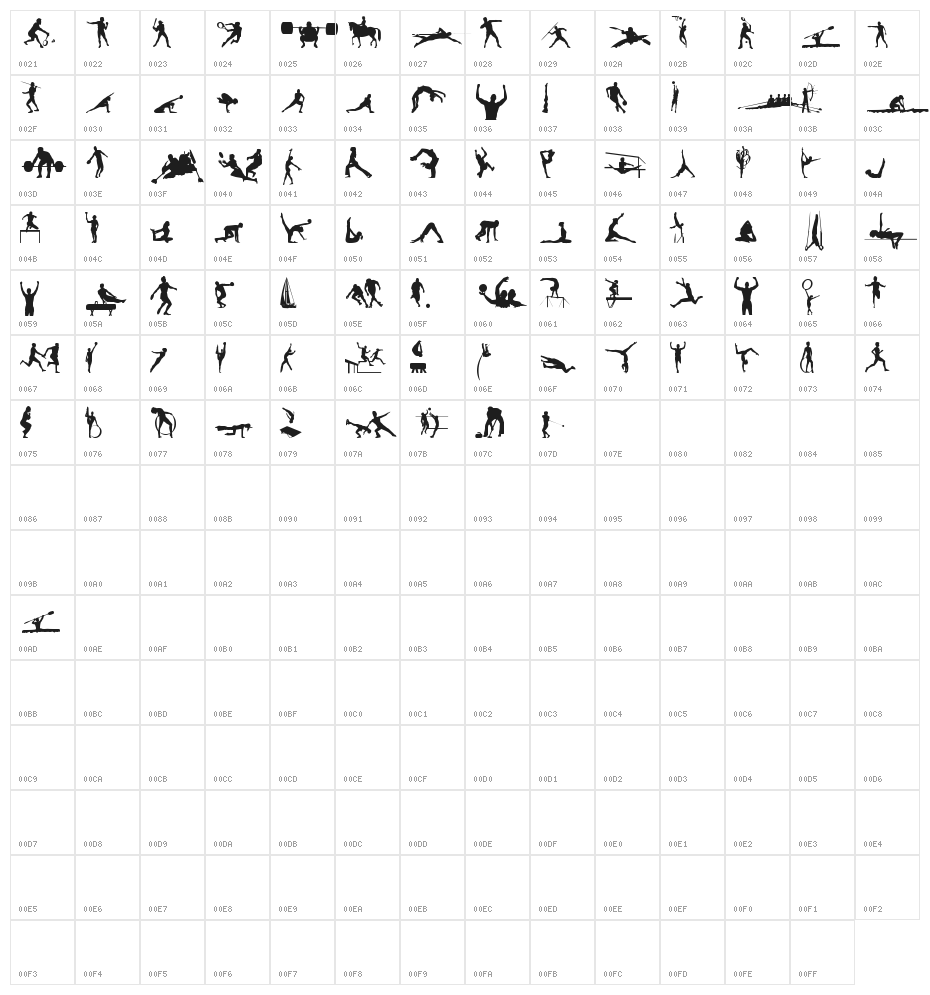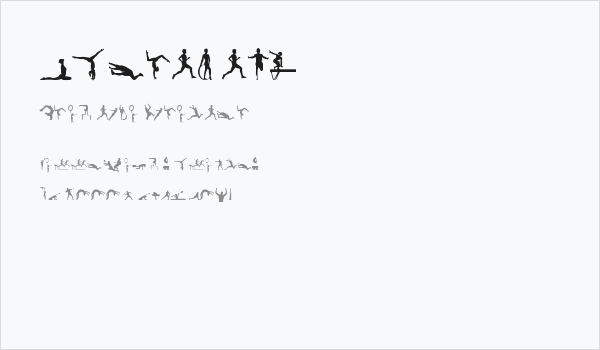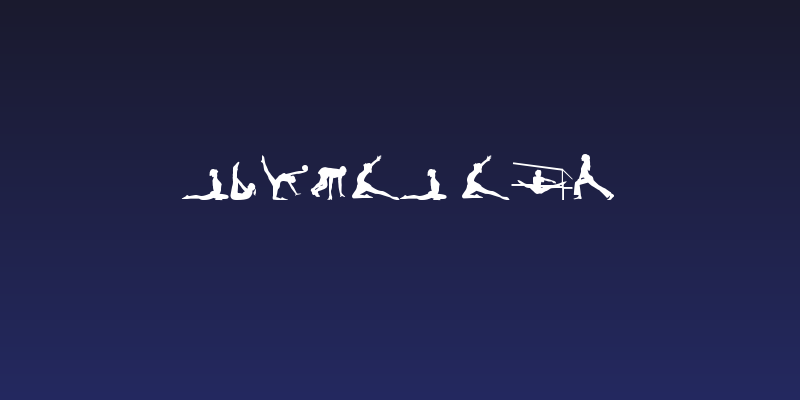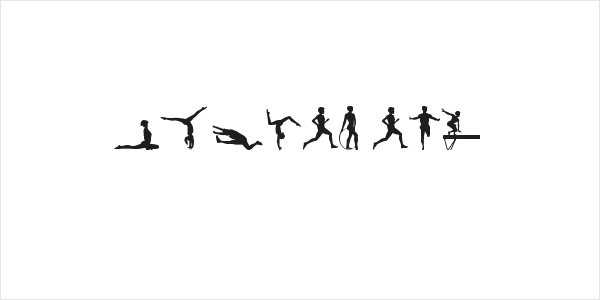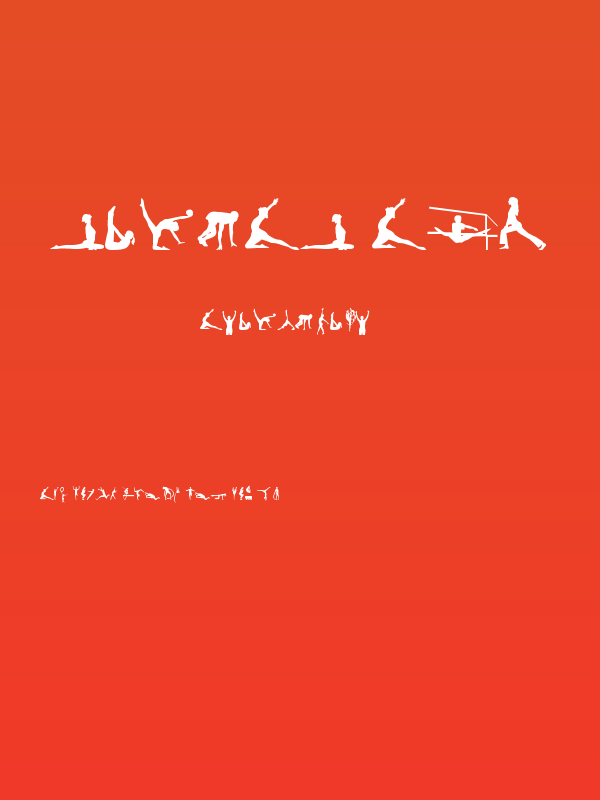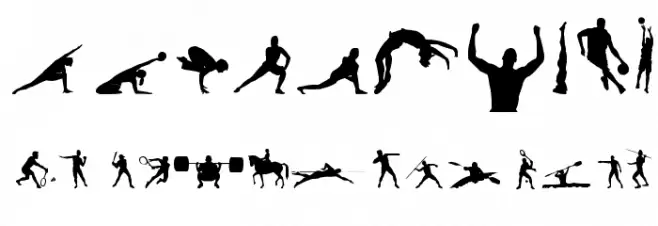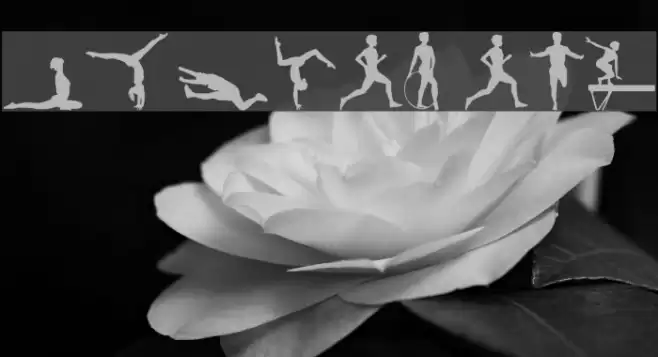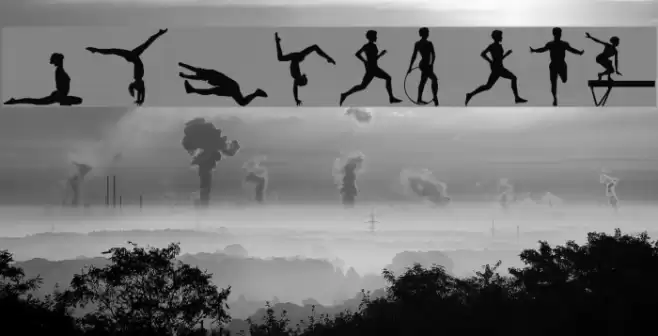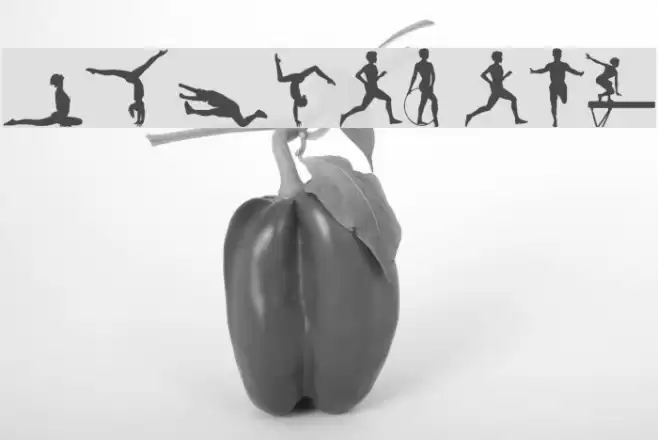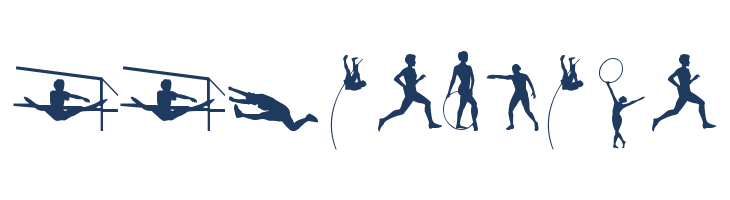
Sports tfb Font
Sports tfb Description
A decorative display font composed of black silhouettes depicting various sports and athletic poses, with each character represented by a different dynamic human figure in motion. The glyphs are highly illustrative and lack traditional typographic features such as serifs or consistent stroke width.
| Overall Style | Decorative, Playful, Thematic |
| Use Case | Headlines, Posters, Logos, Themed graphics |
| Proposed Projects | Sports event posters, athletic branding, youth activity flyers, themed invitations, educational materials about sports. |